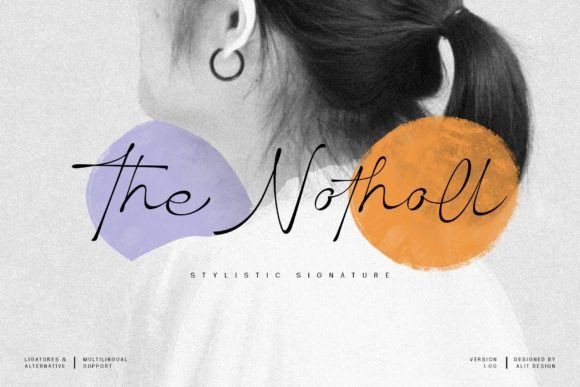
The Notholl Font
Prepare to be spellbound by The Notholl Font, the epitome of elegance and charm. This captivating script font will transport you to a realm of creativity, where words dance and emotions flow. Let the magic of The Notholl weave its enchanting spell on your designs, leaving your audience spellbound.
Indulge in the beauty of The Notholl's meticulously crafted glyphs and swash characters, accessible with ease through PUA encoding. Unleash your imagination and let your designs blossom with grace and sophistication. Picture your wedding invitations adorned with The Notholl's delicate strokes, each letter a testament to your love story. Enchant your thank-you cards with an air of gratitude, leaving a lasting impression on the hearts of your recipients.
Unleash your creativity with The Notholl, the font that transforms ordinary words into visual masterpieces. Craft mesmerizing quotes that resonate with your audience, captivating their attention with every stroke. Let your greeting cards bloom with warmth and charm, spreading joy and love with each word. Design logos that stand out from the crowd, embodying elegance and professionalism. Create business cards that leave an unforgettable mark, reflecting your brand's unique personality.
With The Notholl, every design becomes a testament to your artistry. Its versatility knows no bounds, adapting gracefully to any project you envision. Whether you seek to captivate, inspire, or simply share a message of love, The Notholl will be your faithful companion, transforming your creative vision into a tangible reality.
Join the ranks of discerning designers who have embraced The Notholl's magic. Allow this extraordinary font to elevate your designs, leaving your audience breathless with its beauty and grace. Discover the limitless possibilities that await you with The Notholl, the font that will ignite your passion and forever change the way you express yourself creatively.